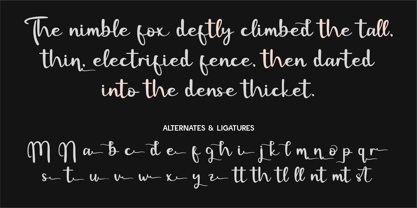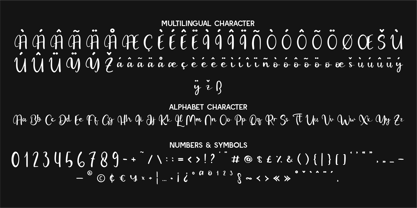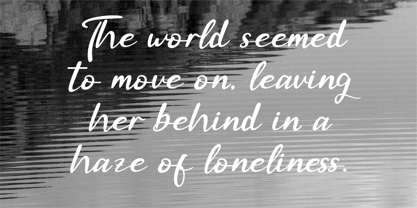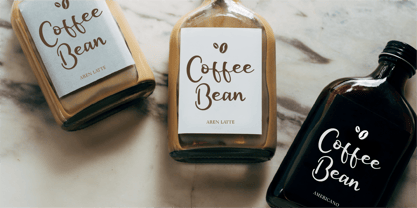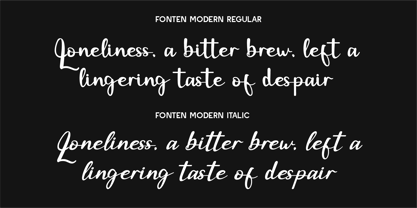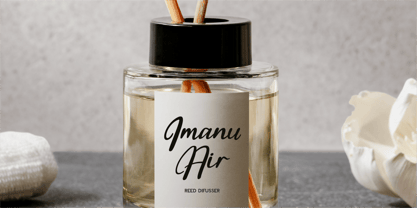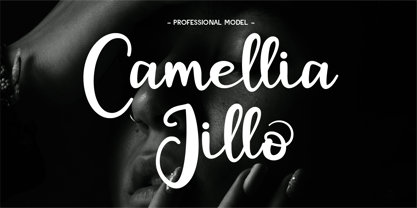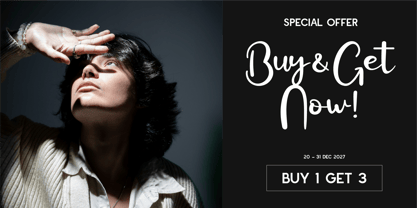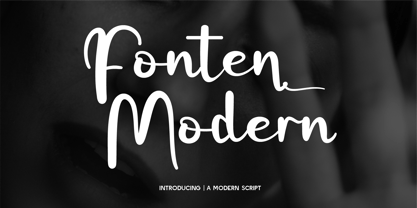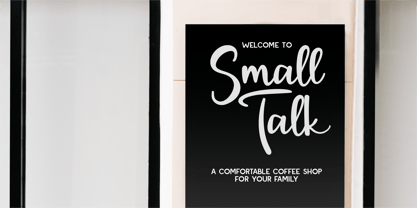
CF Fonten Modern
Fonten Modern is a stylish and contemporary script font that blends bold strokes with fluid, elegant curves. Designed to bring a sense of confidence and sophistication, this typeface features smooth, flowing lines with a modern calligraphic touch. The combination of thick and thin strokes adds character and versatility, making it perfect for branding, product packaging, logos, website headers, social media posts, and editorial design.
With its effortlessly chic aesthetic, Fonten Modern is ideal for luxury branding, fashion-related designs, beauty industry projects, and creative advertising. Whether you're crafting elegant wedding invitations, bold magazine titles, or modern business logos, this font ensures a dynamic and eye-catching presence. Its balance of contemporary style and graceful script forms makes it a standout choice for projects requiring both impact and refinement.
- Standard Character A-Z, a-z, 0-9, Punctuation & symbols
- Regular and Italic